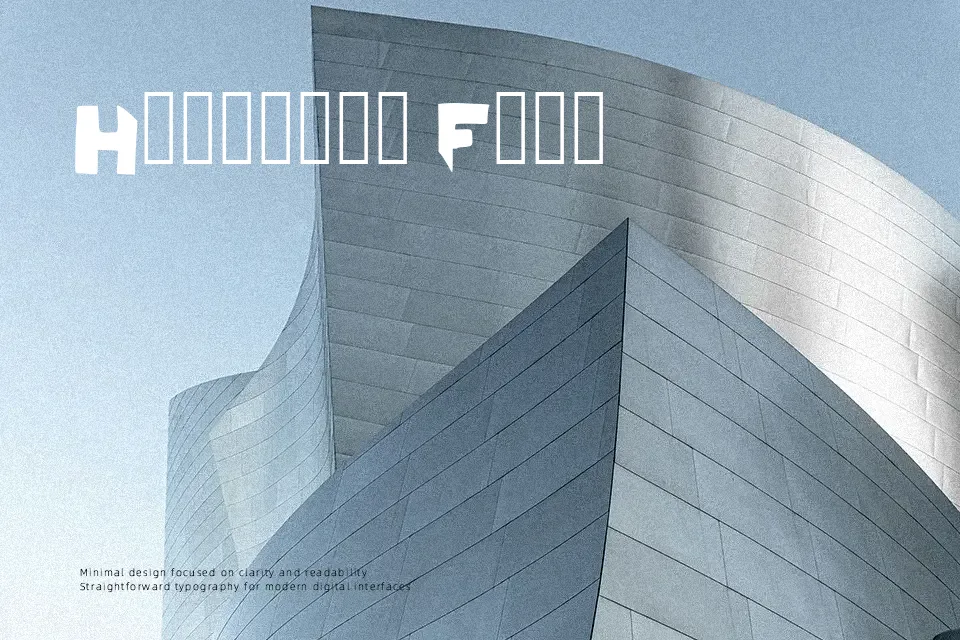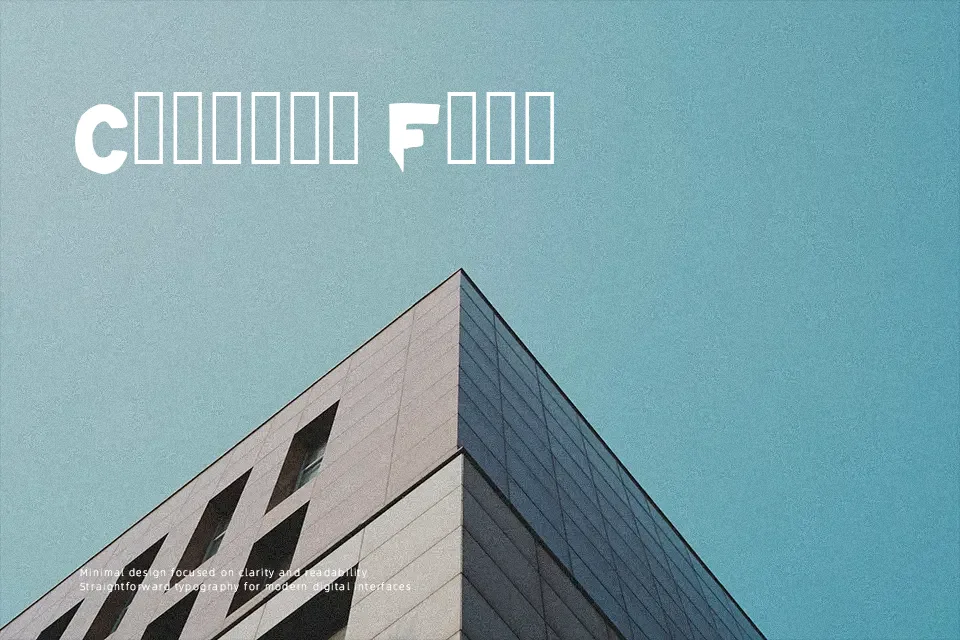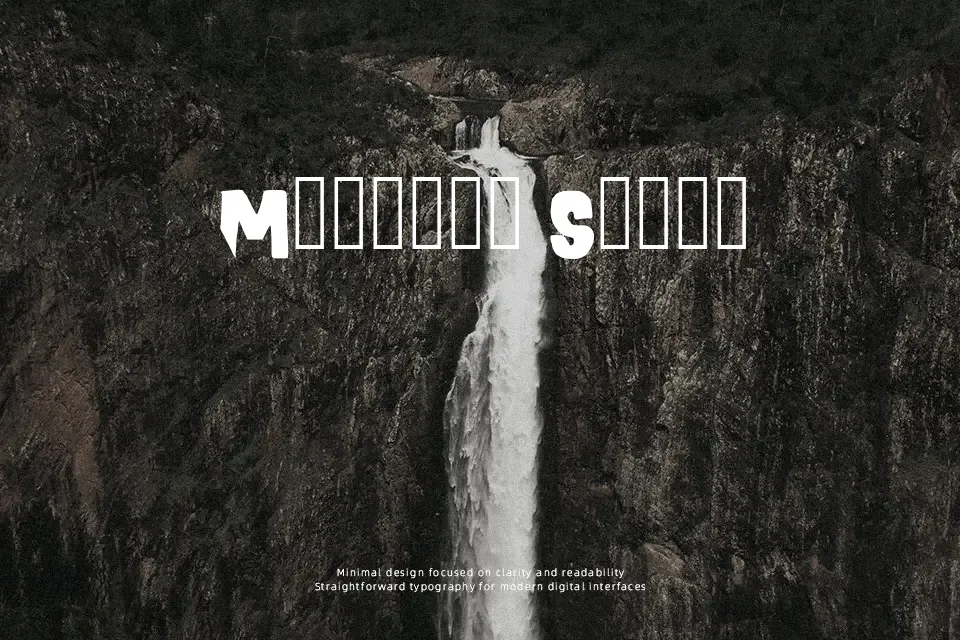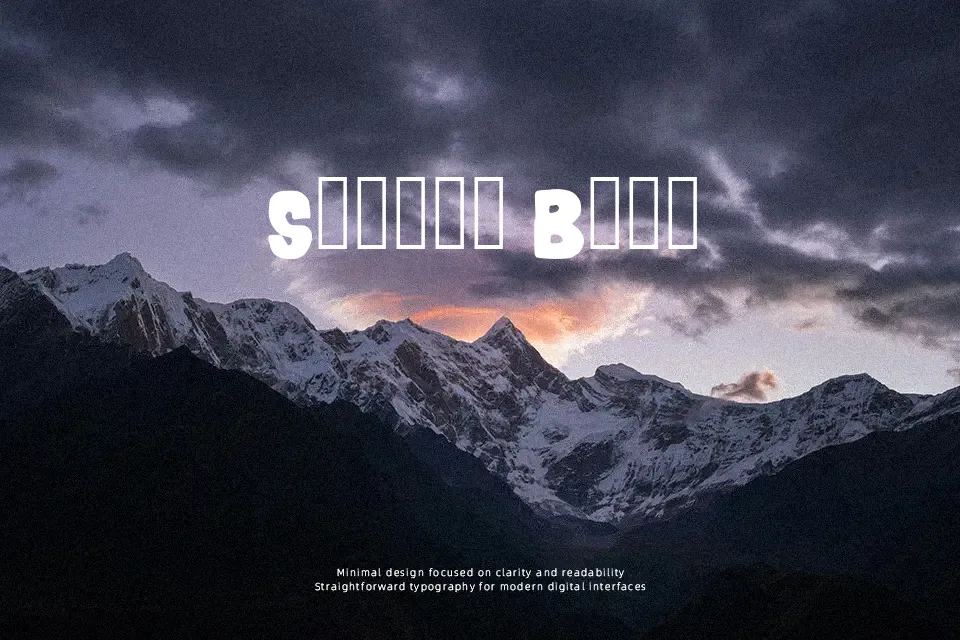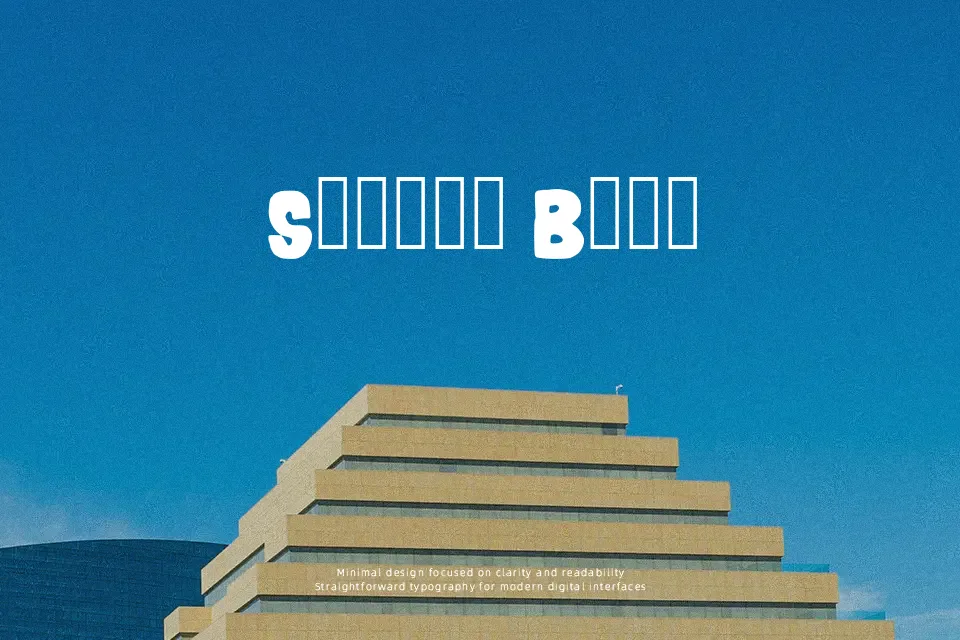
Rixton Font
Rixton Font offers a distinctive display aesthetic characterized by consistent stroke contrast and well-defined character structures. The letterforms exhibit a balanced visual rhythm, featuring sturdy vertical stems and precise geometric proportions that enhance its presence on the page. Because the character spacing is somewhat compact, the design maintains excellent structural integrity when applied to prominent headlines or short branding statements. The spacing helps maintain clarity in larger headlines, allowing the typeface to deliver a strong, confident statement. However, its decorative nature and dense forms reduce comfort during extended reading, making it less suitable for long paragraphs. Overall, the design provides an engaging typographic solution for projects requiring immediate visual impact and specialized display typography.
music festival posters, website hero headlines, cosmetic branding
long paragraph text, spreadsheet data, dense editorial layouts
Perfect for fashion, headline, and music, with a bold and decorative style.